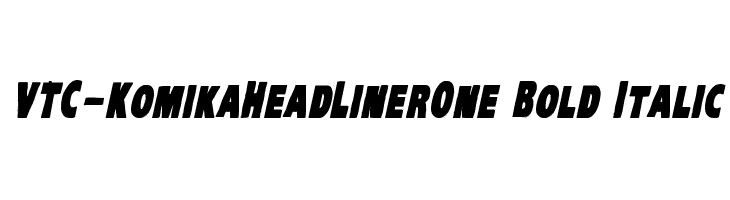
A bold, playful font with a hand-drawn, vintage comic style.
A bold, impactful font with thick strokes and a strong visual presence.
A bold, italicized font with a dynamic and energetic style.